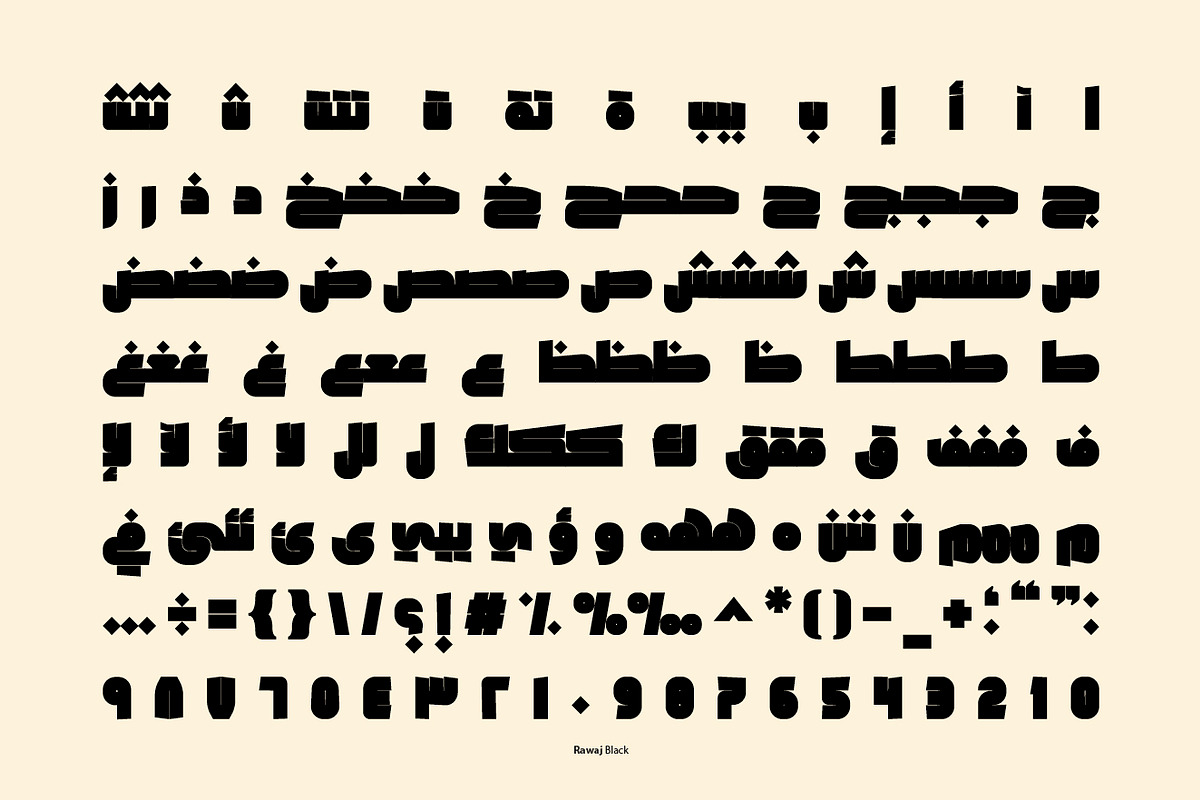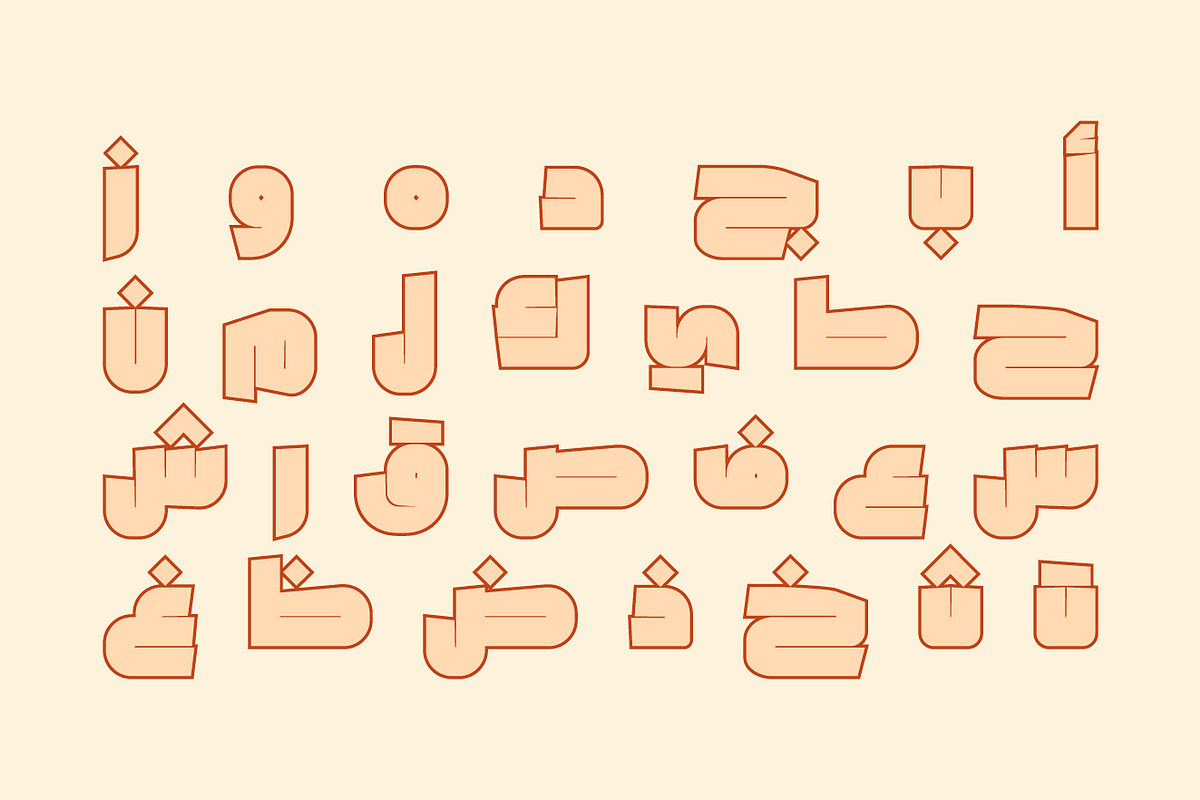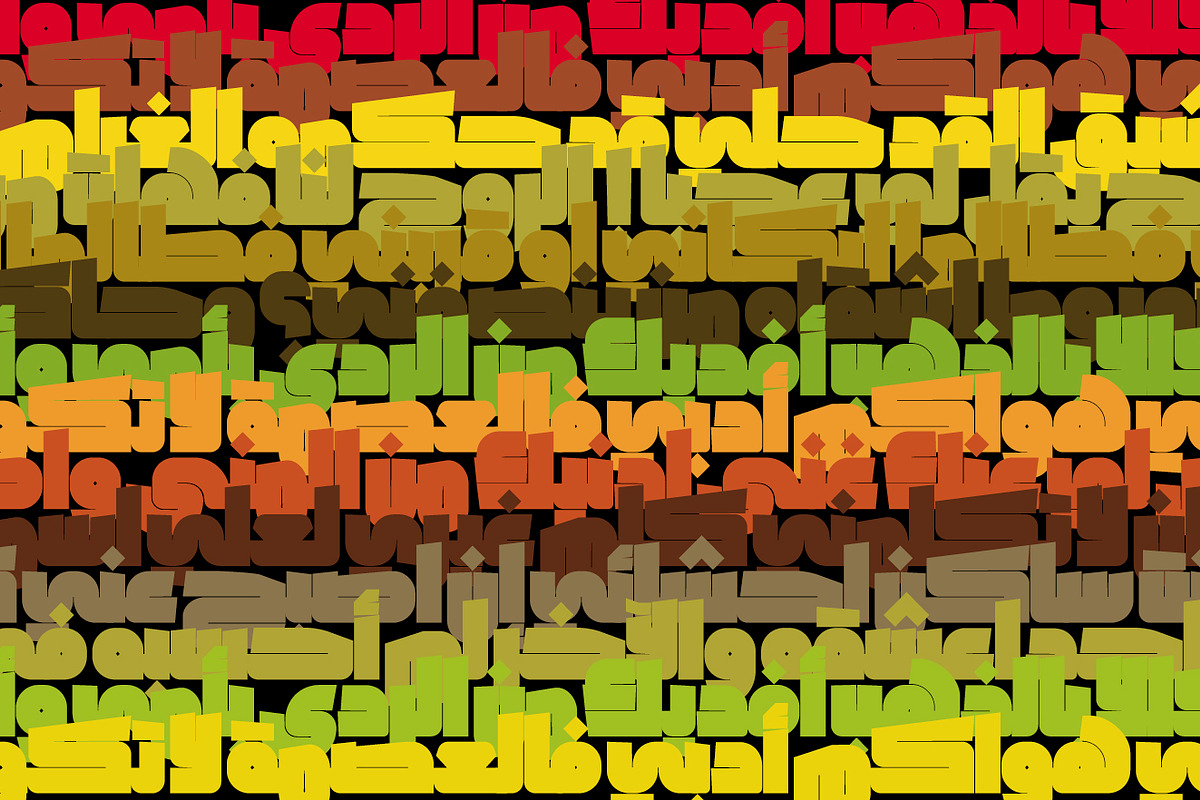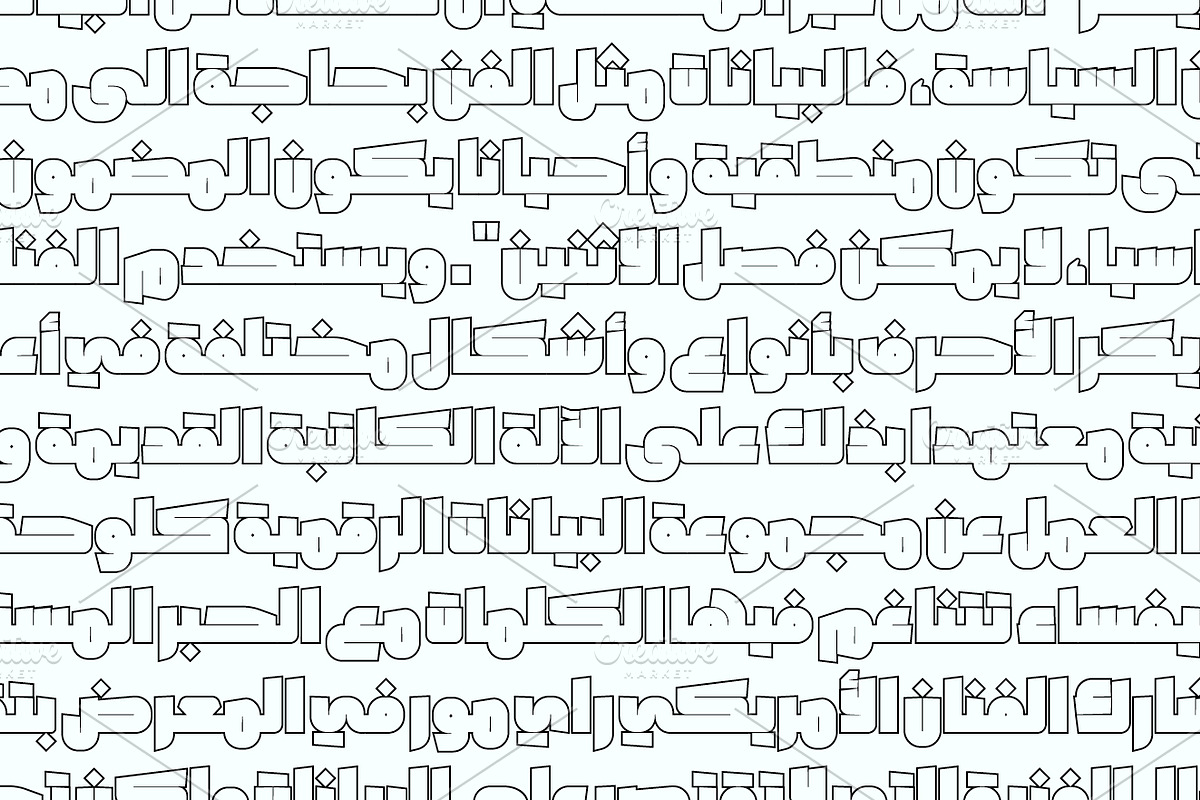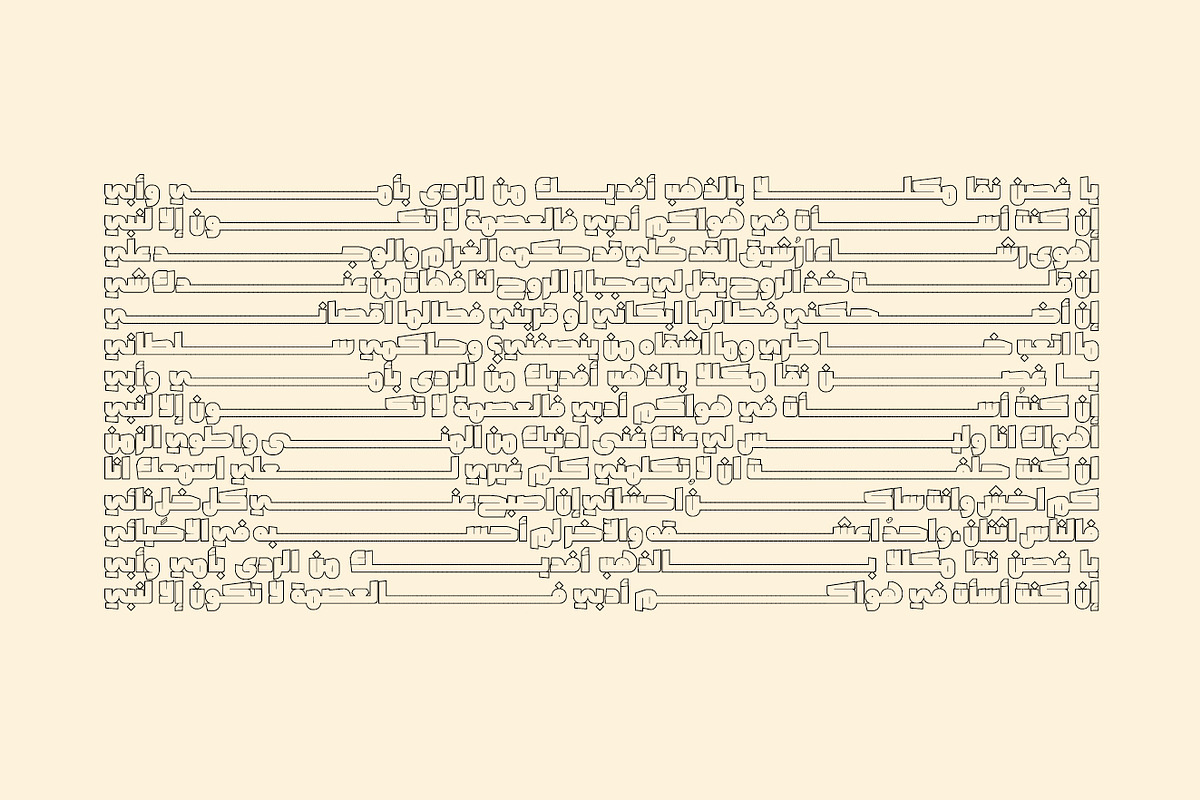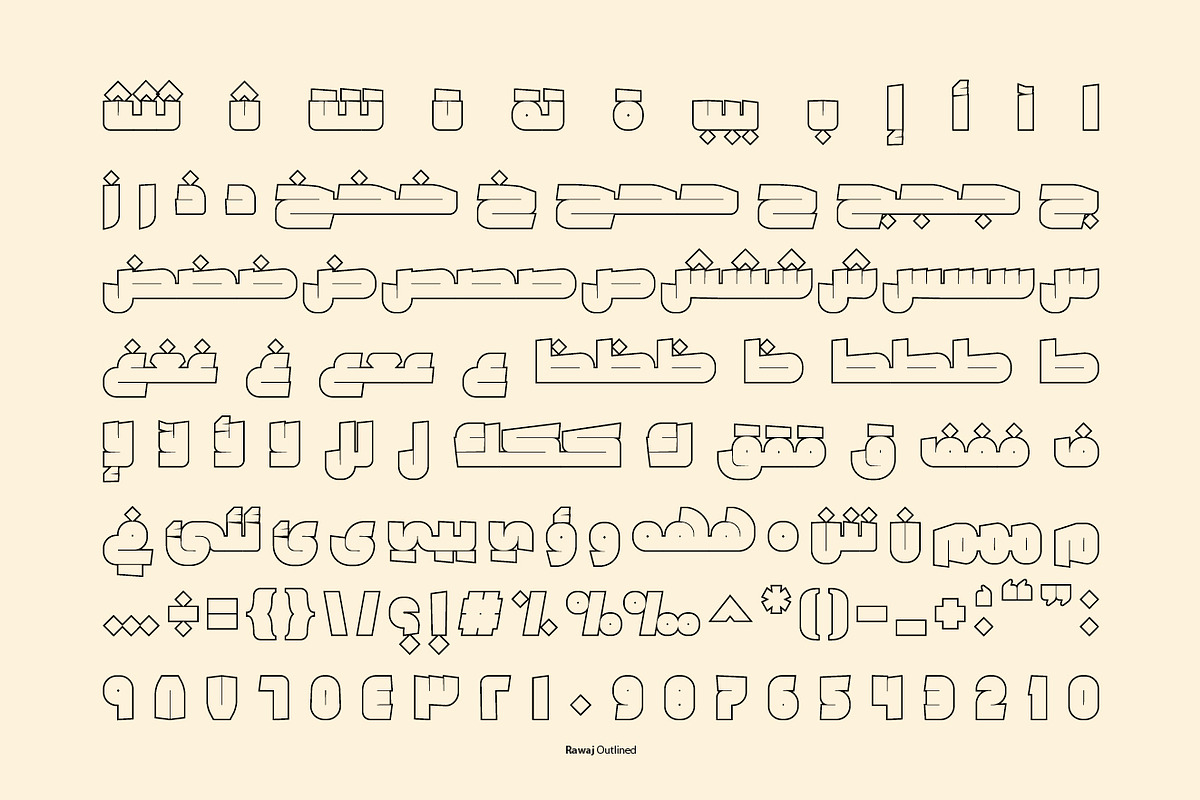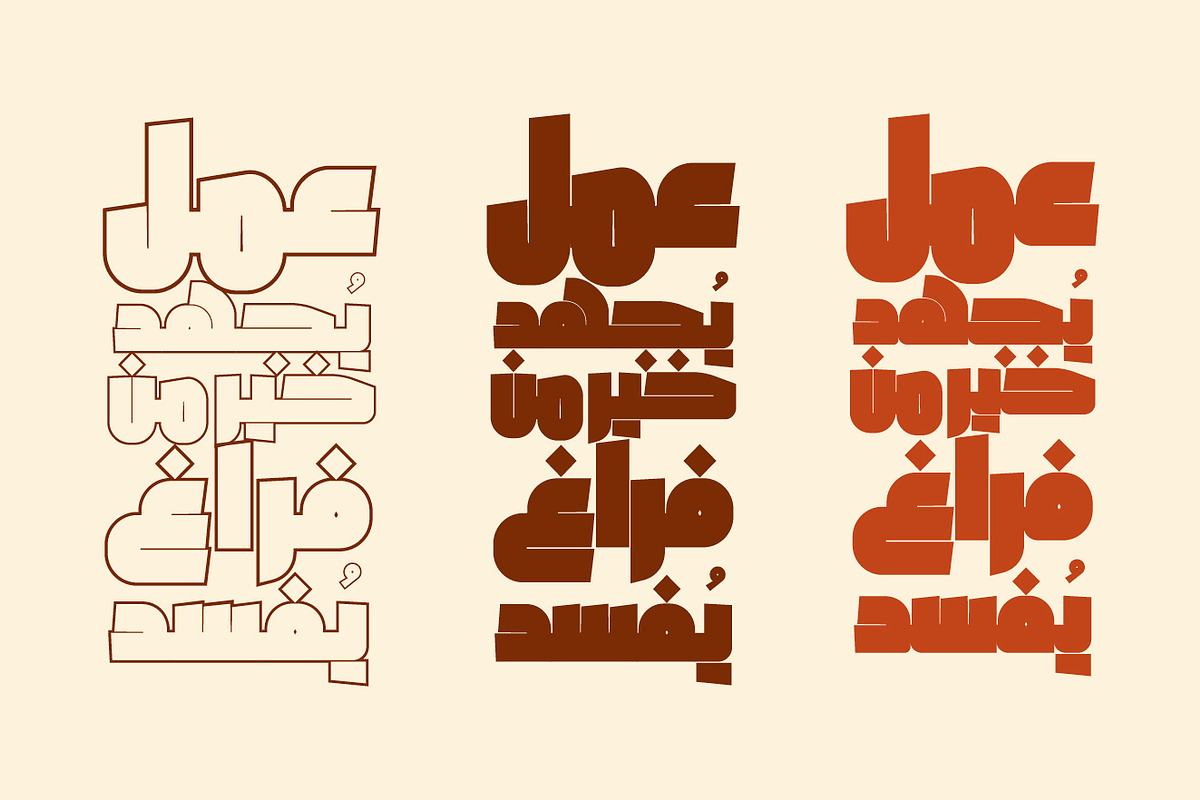
Rawaj - Arabic Font | خط رواج
Rawaj - Arabic Font | خط رواج by Mostafa El Abasiry is a font selected for branding, posters, packaging, typography.
- Rawaj Heavy
- Rawaj Black
- Rawaj Outlined
Rawaj - Arabic Font | خط رواج by Mostafa El Abasiry fits naturally into Branding, posters, packaging, typography.